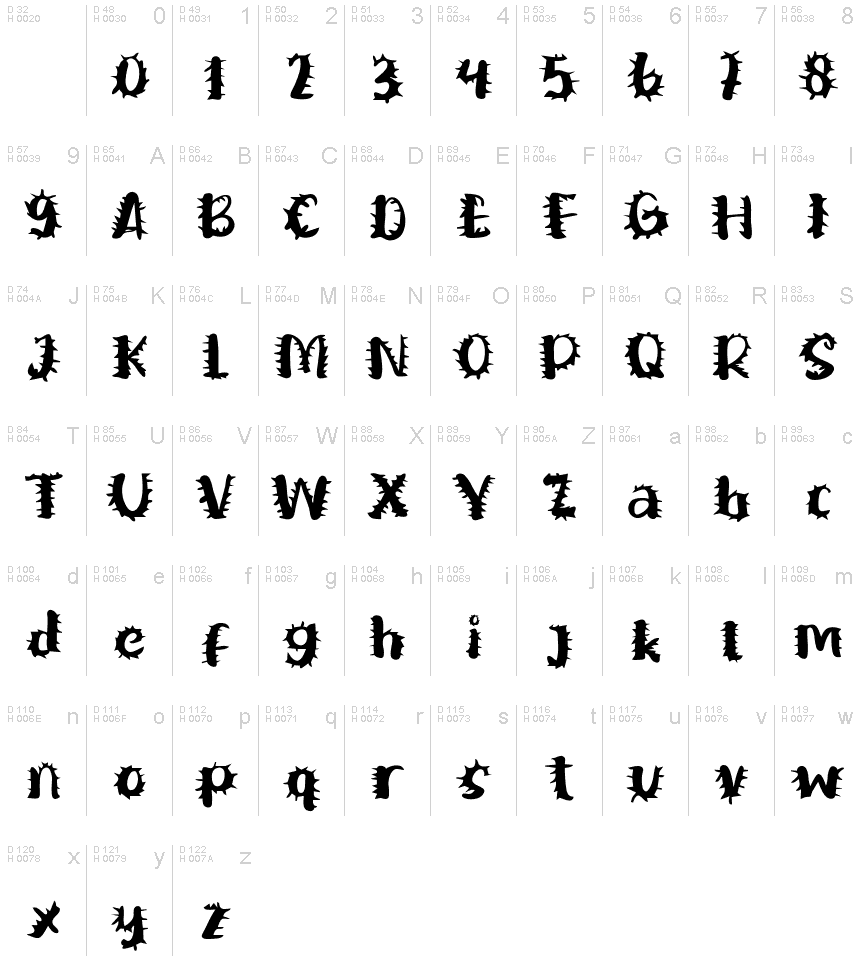
Berduri
Looking for a bold and decorative font to make your projects stand out from the crowd? Look no further than Berduri, the latest display typeface from Share Font. With its bold weight and ornate flourishes, this font is perfect for everything from eye-catching headlines to striking logos and branding materials. Whether you're designing a poster, creating a website or crafting marketing materials for your business, Berduri is sure to make an impact. So why wait? Download Berduri today and start bringing your creative visions to life!